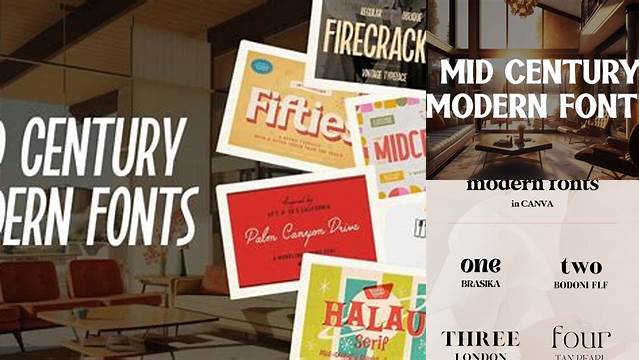
Mid-Century Modern Fonts: A Canva Design Guide
Hey guys! Are you looking to inject some retro charm into your designs? Then you're in the right place! We're diving deep into the world of mid-century modern fonts available right inside Canva. This guide will help you choose the perfect typography to nail that classic, stylish aesthetic. Let's get started!
Understanding Mid-Century Modern Design
Before we jump into specific fonts, let's quickly define what mid-century modern design actually is. Think clean lines, geometric shapes, and a focus on functionality. This style, popular from the 1940s to the 1960s, embodies optimism and a futuristic outlook. When choosing mid-century modern fonts, look for typefaces that reflect these qualities: sans-serif fonts with a touch of playfulness, or elegant serifs with a clean, contemporary feel. This design movement was a reaction to the ornate styles that preceded it, embracing simplicity and functionality. When it comes to incorporating this style into your designs, it is crucial to focus on legibility and clean aesthetics, thus allowing users to easily engage with the content without feeling overwhelmed. Moreover, it is important to understand that mid-century modern fonts are not just about aesthetics, they also reflect the values and the spirit of the era.
Why Use Mid-Century Modern Fonts in Canva?
Canva is an amazing tool for designers of all skill levels. Using mid-century modern fonts in Canva can instantly elevate your designs. They add a touch of sophistication and nostalgia, making your projects stand out. Whether you’re creating social media graphics, presentations, or even just personal projects, these fonts can help you capture that timeless vibe. Canva's extensive font library makes it easy to experiment and find the perfect fit for your project, and using the right typography can drastically improve the overall visual appeal and effectiveness of your design. Moreover, Canva’s user-friendly interface and readily available templates enable users to seamlessly integrate mid-century modern fonts into their projects, thus making the entire design process more efficient and enjoyable. By choosing fonts that reflect the optimism and forward-thinking spirit of the mid-century era, users can create designs that not only look good but also resonate with a sense of history and style.
Top Sans-Serif Mid-Century Modern Fonts in Canva
Sans-serif fonts are a staple of mid-century modern design. Their clean, uncluttered appearance perfectly embodies the minimalist aesthetic of the era. Some great options in Canva include Montserrat, Open Sans, and Lato. Montserrat, for example, offers excellent readability and a versatile geometric structure, making it ideal for both headlines and body text. Open Sans is another fantastic choice, known for its neutral yet friendly appearance, which works well in a variety of design contexts. Lato provides a more modern and sophisticated feel, with semi-rounded details that add a touch of warmth. These fonts are perfect for creating a sense of openness and clarity in your designs, reflecting the forward-thinking spirit of the mid-century era. When pairing these fonts, consider using different weights and sizes to create visual hierarchy and maintain a balanced composition. You might use a bolder weight of Montserrat for headlines and a lighter weight of Open Sans for body text to ensure optimal readability and visual appeal. Experiment with different combinations and find what works best for your project, but always prioritize legibility and consistency to maintain a cohesive and professional look.
Elegant Serif Mid-Century Modern Fonts in Canva
While sans-serif fonts are more commonly associated with mid-century modern design, serif fonts can also play a beautiful role. Opt for serifs with clean lines and a contemporary feel, such as Playfair Display or Libre Baskerville. Playfair Display exudes elegance and sophistication, making it perfect for headlines and titles that need a touch of class. Libre Baskerville offers excellent readability and a timeless appeal, suitable for longer passages of text. These serif fonts bring a sense of tradition and refinement to your designs while still maintaining a modern edge. When incorporating serif fonts, it’s important to balance them with sans-serif fonts to avoid overwhelming the design. For example, you could use Playfair Display for headlines and Open Sans for body text to create a harmonious contrast. The key is to ensure that the serif font complements the overall aesthetic of your design and enhances the visual appeal without sacrificing readability. Experiment with different combinations and consider the specific context of your project to make the best choice.
Pairing Mid-Century Modern Fonts for Impact
Choosing the right font pairings is key to creating a cohesive and visually appealing design. A classic combination is to pair a bold sans-serif font with a lighter serif font. For example, you could use Montserrat for your headings and Libre Baskerville for your body text. This creates a nice contrast and makes your design more interesting. Another approach is to pair two different weights of the same font family, such as using bold and regular weights of Open Sans. This maintains a sense of consistency while still adding visual variety. When pairing fonts, consider the overall tone and style of your design. If you’re aiming for a more playful and retro look, you might choose a more whimsical sans-serif font and pair it with a simple, elegant serif. If you’re going for a more sophisticated and modern feel, opt for cleaner and more minimalist fonts. Ultimately, the best way to find the perfect font pairing is to experiment and see what works best for your project.
Color Palettes That Complement Mid-Century Modern Fonts
Colors play a crucial role in achieving the mid-century modern aesthetic. Think warm, earthy tones like mustard yellow, olive green, and burnt orange, combined with cooler shades like teal and turquoise. These colors work beautifully with mid-century modern fonts, enhancing the overall retro vibe of your designs. Experiment with different combinations to find a palette that suits your project. For example, you might use a mustard yellow background with teal accents and white typography for a vibrant and eye-catching design. Or, you could opt for a more muted palette of olive green and burnt orange with dark grey typography for a sophisticated and understated look. When choosing colors, consider the emotional impact you want to create. Warm colors tend to evoke feelings of energy and excitement, while cool colors create a sense of calm and tranquility. By carefully selecting your color palette, you can enhance the message and overall impact of your design.
Using Canva Templates with Mid-Century Modern Fonts
Canva offers a wide range of templates that you can customize with mid-century modern fonts. This is a great way to quickly create professional-looking designs without having to start from scratch. Simply choose a template that you like and then customize the fonts, colors, and images to fit your brand and style. Look for templates that feature clean lines, geometric shapes, and a focus on functionality, as these are all hallmarks of mid-century modern design. When customizing templates, don’t be afraid to experiment with different font pairings and color palettes to create a unique and personalized look. You can also add your own images and graphics to further enhance the design and make it your own. Canva’s user-friendly interface makes it easy to make these changes, even if you’re not a professional designer.
Creating Logos with Mid-Century Modern Typography
A logo is the cornerstone of any brand. Using mid-century modern typography for your logo can give it a timeless and sophisticated appeal. Choose a font that reflects the personality and values of your brand. A clean, geometric sans-serif font like Montserrat or Lato can convey a sense of modernity and professionalism, while a more playful font can add a touch of personality. When designing your logo, keep it simple and memorable. Avoid using too many fonts or colors, as this can make the logo look cluttered and confusing. Focus on creating a design that is easy to recognize and can be used across a variety of mediums, from business cards to websites. Consider the overall aesthetic of your brand and choose a font that complements it. If your brand is modern and minimalist, opt for a clean and simple sans-serif font. If your brand is more traditional and elegant, choose a serif font with classic proportions.
Designing Social Media Graphics with Mid-Century Modern Fonts
Social media graphics are a great way to showcase your brand and engage with your audience. Using mid-century modern fonts can make your graphics stand out and capture attention. Choose fonts that are easy to read and visually appealing, even on small screens. Consider using bold and contrasting colors to make your graphics more eye-catching. When designing social media graphics, keep your target audience in mind. What kind of content do they enjoy? What are their interests and preferences? Tailor your designs to appeal to your audience and create content that they will find valuable and engaging. Use high-quality images and graphics to enhance the visual appeal of your designs. And don’t forget to include a clear call to action, telling your audience what you want them to do, whether it’s visiting your website, following your page, or making a purchase.